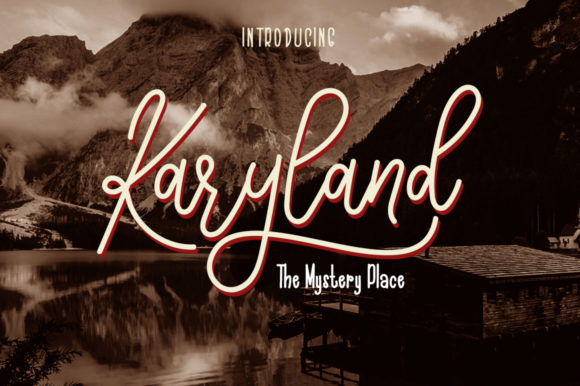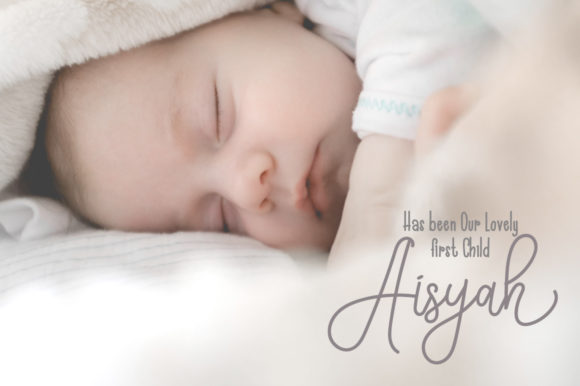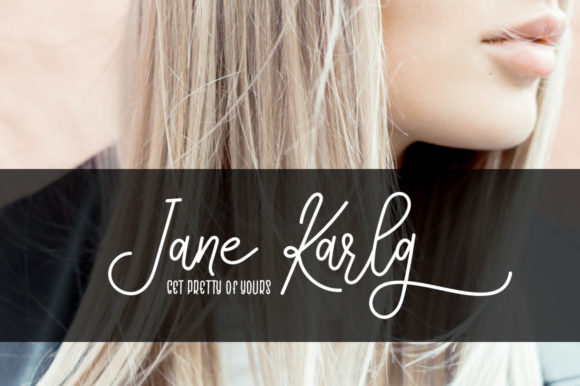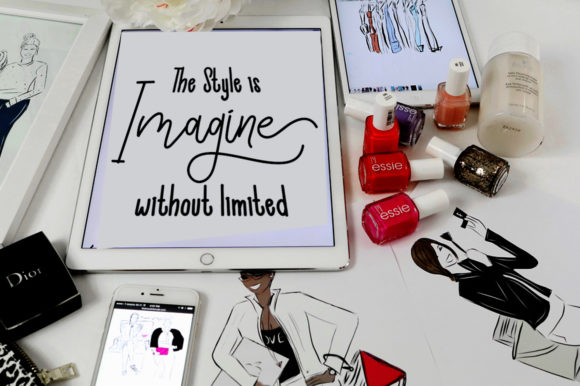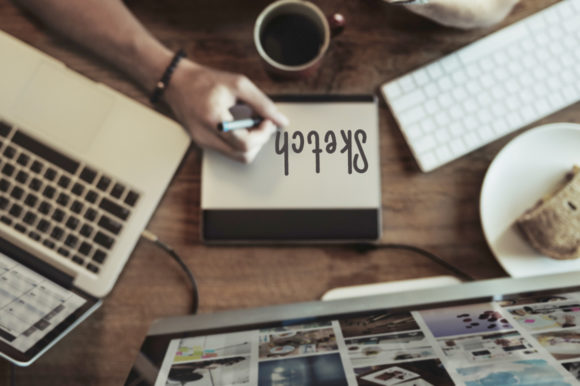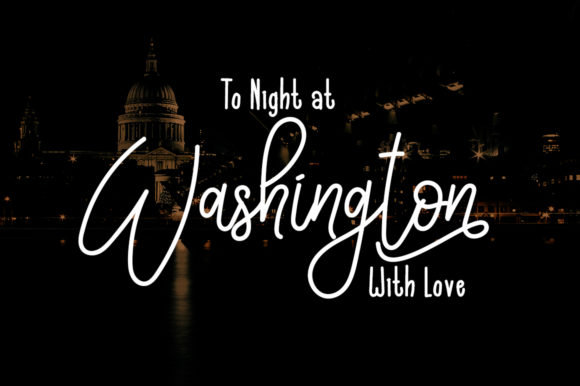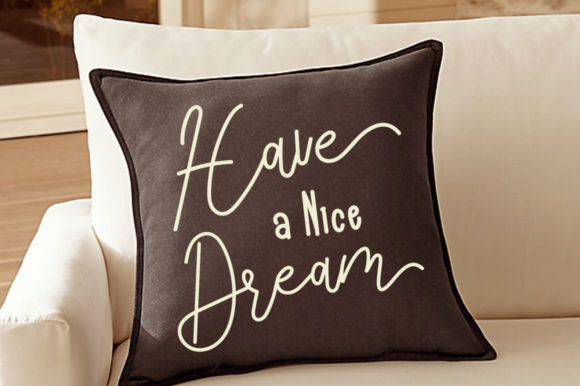
Karyland Duo Font
About Karyland Duo Font
The Karyland is a striking font duo. Both styles can be combined perfectly which gives you the opportunity to create multiple unique designs in an instant.
It’s hand-lettered style is perfect for greeting cards, branding, stationary, social media designs, magazines, logos, and much more!